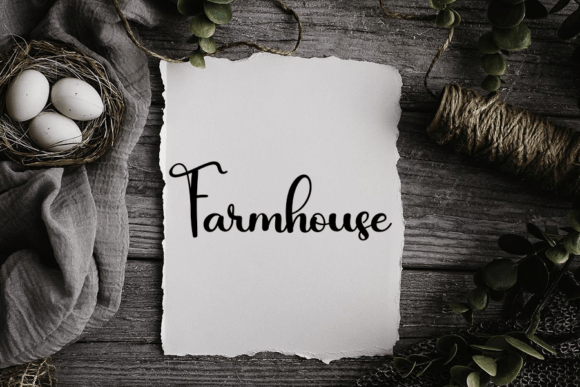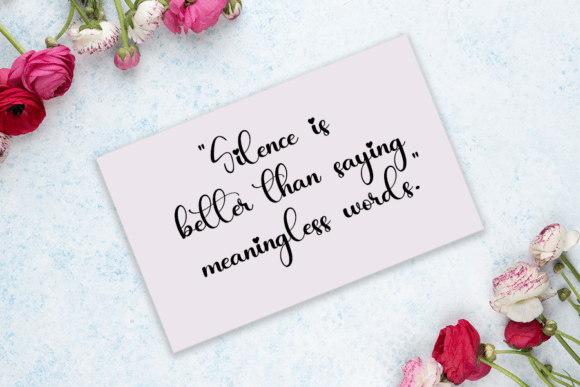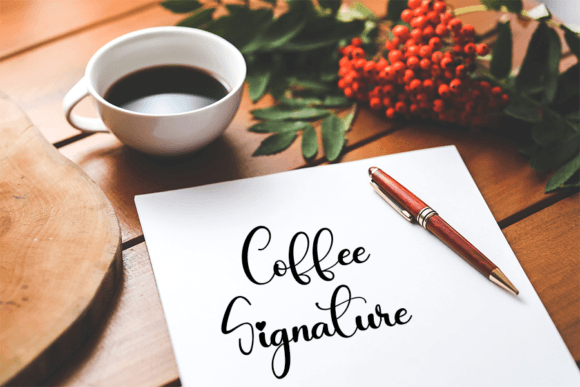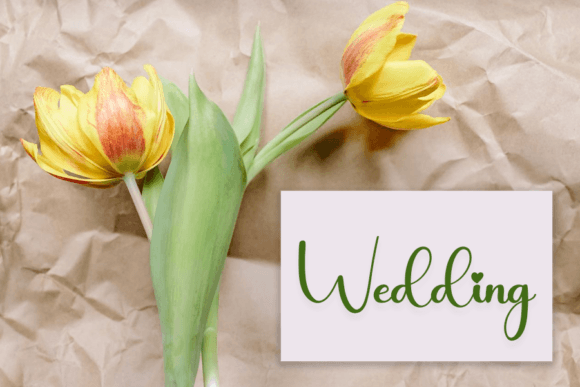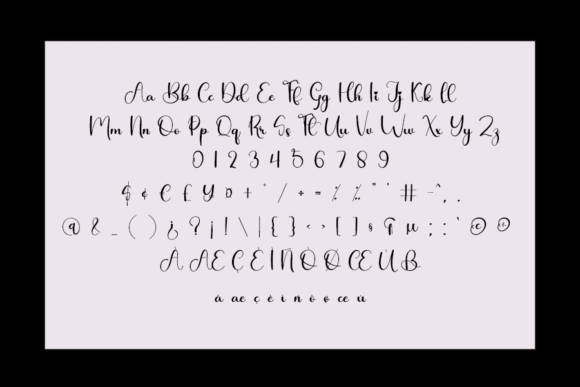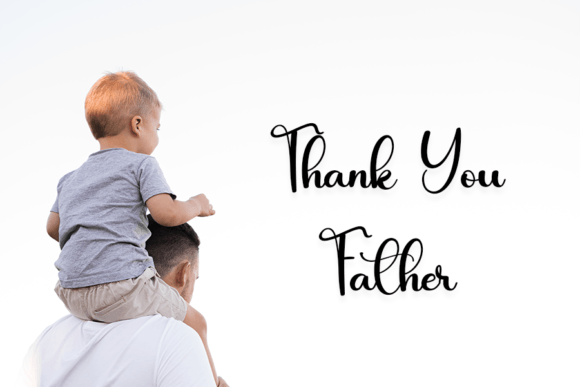
The Sweet Allure of Baking Font
As I sat at my kitchen table, sipping coffee and flipping through a vintage cookbook, I stumbled upon a beautiful illustration of a delicate pastry. The intricate details and elegant script caught my eye, and suddenly, I was inspired to create something special. I envisioned a typeface that captured the same whimsical charm – a font that would add a touch of romance and sophistication to any design.
Enter Baking Font, a stunning, feminine typeface designed specifically for headlines. This beautiful script is perfect for wedding stationery, invitations, and social media posts, as well as for packaging and branding in the floral and baking industries. With Baking Font, designers can add a touch of elegance and whimsy to their projects, making it a valuable addition to any design toolkit.
Baking Font Key Features
- Size: 256 glyphs, 16 font styles (8 upright and 8 italics)
- Resolution: 2048×2048 DPI, ideal for high-resolution printing
- Unique Characteristics: Custom-designed baking-related icons and glyphs, including utensils, ingredients, and baking tools
- Font Width: Variable width font, suitable for both body text and display typography
Baking Font Review
As a designer, I was excited to dive into the “Baking Font” and see what it had to offer. Here’s my honest review:
- Custom illustrations: The font includes a variety of custom illustrations that add a personal touch to baked goods, such as donuts and cakes.
- Food-themed icons: The font also comes with a range of food-themed icons, including utensils and ingredients, that can be used to add visual interest to designs.
- Limited character set: The font has a limited character set, which may not be suitable for designs that require a lot of text.
- No ligatures: The font does not include ligatures, which can make it difficult to use for certain types of text, such as headings and titles.
- No language support: The font does not support languages other than English, which may limit its use for international designs.
The “Baking Font” is a cute and playful font that’s perfect for baking-related designs. While it has some limitations, it’s easy to use and includes some great custom illustrations and icons. I would recommend it to designers who need a fun and festive font for their baked goods designs.
Baking Font is perfect for:
- Culinary blogs and websites
- Cookbooks and recipe cards
- Food-related marketing materials
Remember to use Baking Font in context to create a cohesive and visually appealing design.